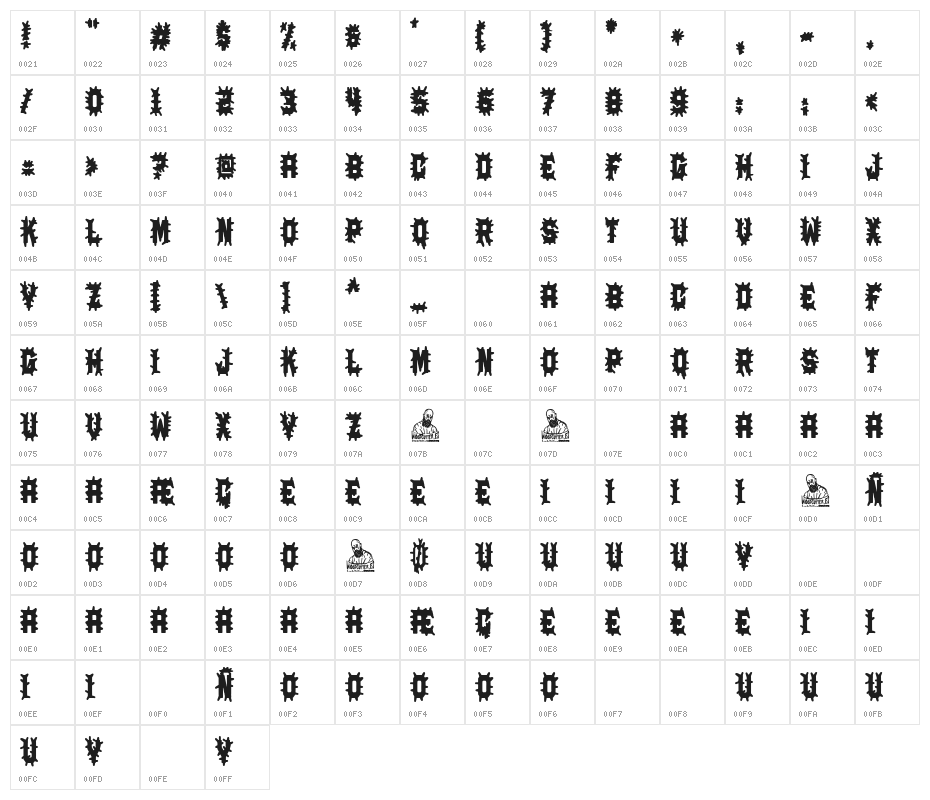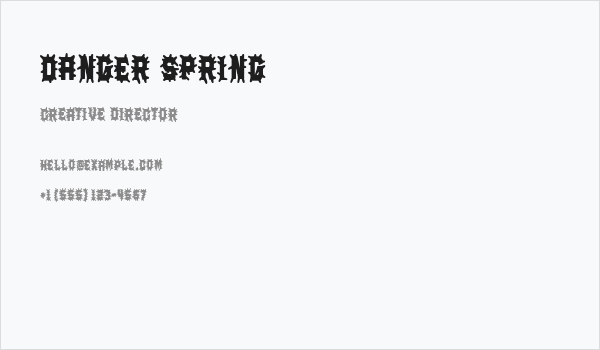
Danger Spring Font
Danger Spring Description
A bold, highly decorative display font with jagged, spiky edges and irregular contours, creating a chaotic and energetic appearance. All characters are uppercase, with exaggerated forms and a consistent, thick stroke weight throughout.
| Overall Style | Decorative, Energetic, Chaotic |
| Use Case | Headlines, Posters, Logos, Event Titles |
| Proposed Projects | Halloween posters, horror movie titles, event flyers, video game graphics, themed party invitations. |